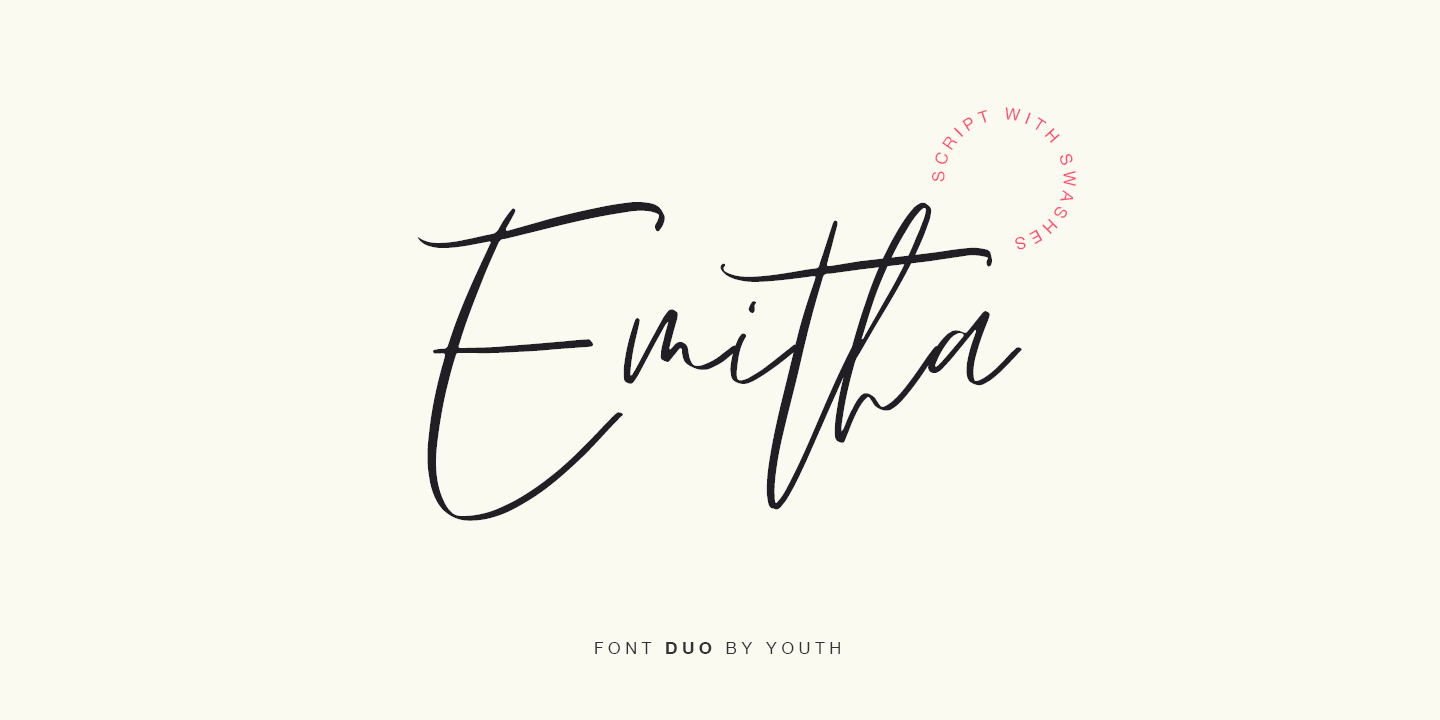
Emitha Font is perfect for romantic wedding invitations, feminine lifestyle blogs, beauty salon branding, boutique fashion labels, artisan jewelry packaging, spa and wellness centers, handmade craft labels, elegant greeting cards, personal stationery, and delicate branding projects.
Emitha Font is exciting because it features graceful script letterforms with delicate flourishes and organic curves that capture the essence of handwritten elegance, creating a warm and personal touch that resonates with audiences seeking authentic, feminine, and heartfelt communication.
The Emitha Font family includes regular script with decorative alternates, stylistic swashes, connecting ligatures, and ornamental elements, providing designers with extensive customization options for creating personalized and sophisticated typographic compositions.
When your project needs to convey warmth and personal connection, Emitha Font Free Download offers the perfect blend of elegance and accessibility. This charming script typeface combines traditional calligraphy inspiration with contemporary readability standards, ensuring your message feels both intimate and professional. The flowing letterforms and thoughtful character spacing make this font an excellent choice for brands targeting audiences who appreciate craftsmanship, authenticity, and the timeless appeal of beautifully executed hand-lettered typography in both digital and print applications.